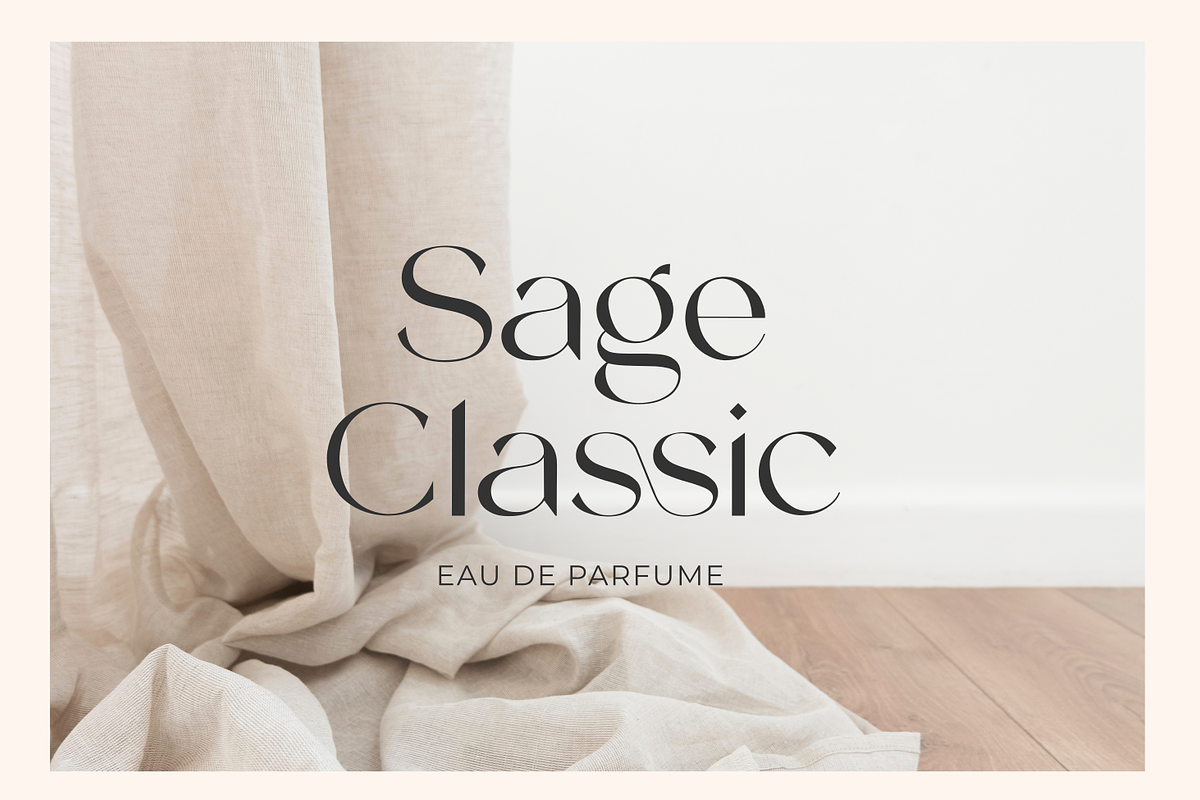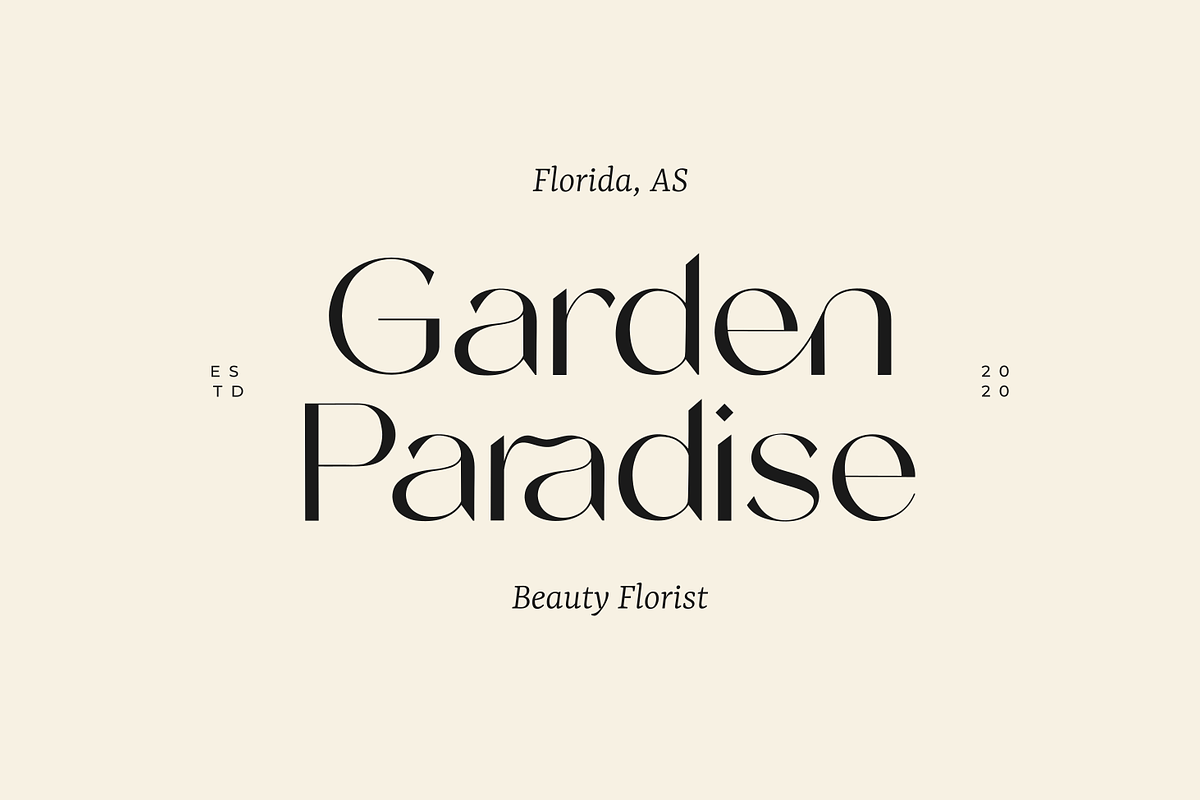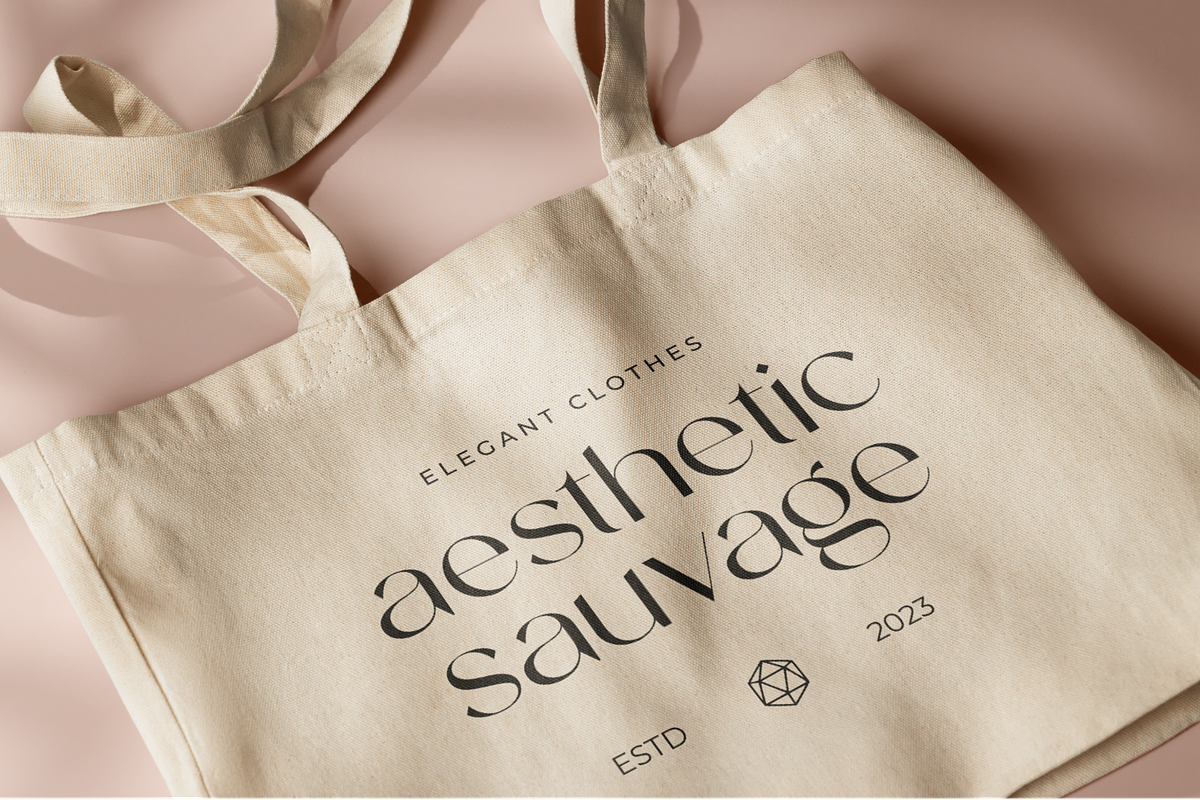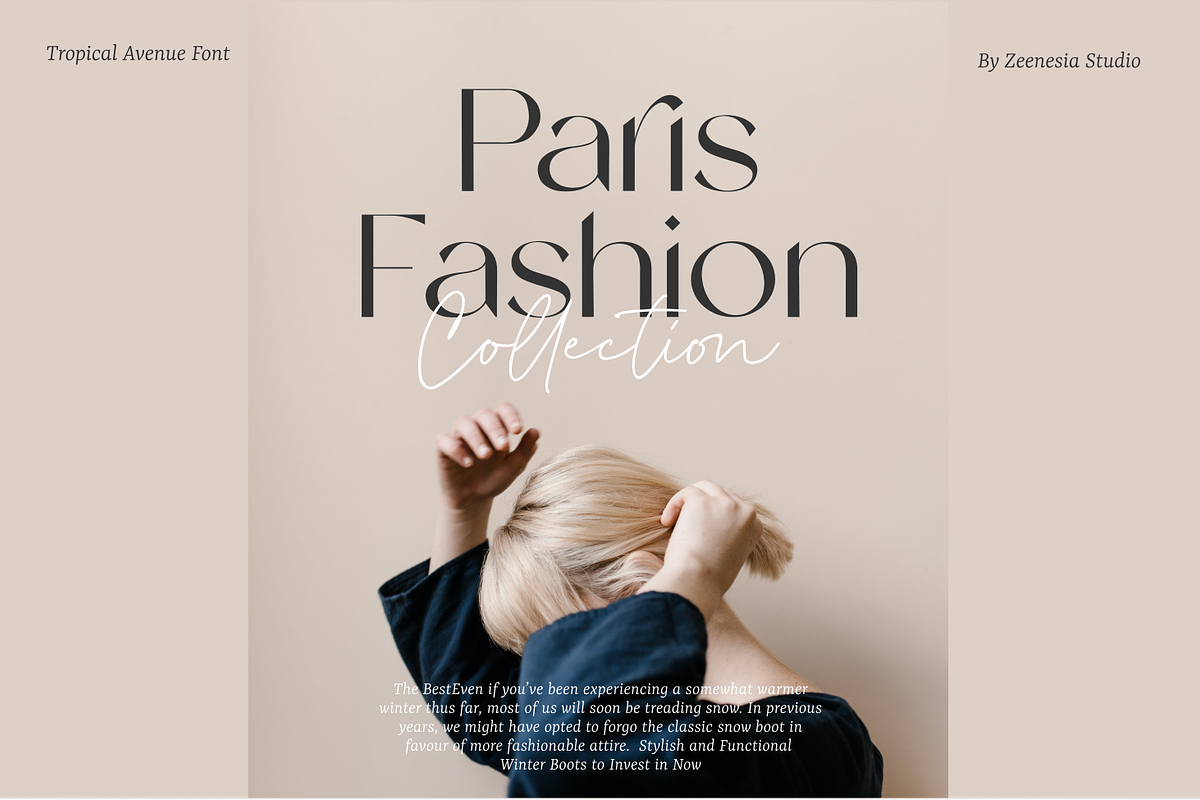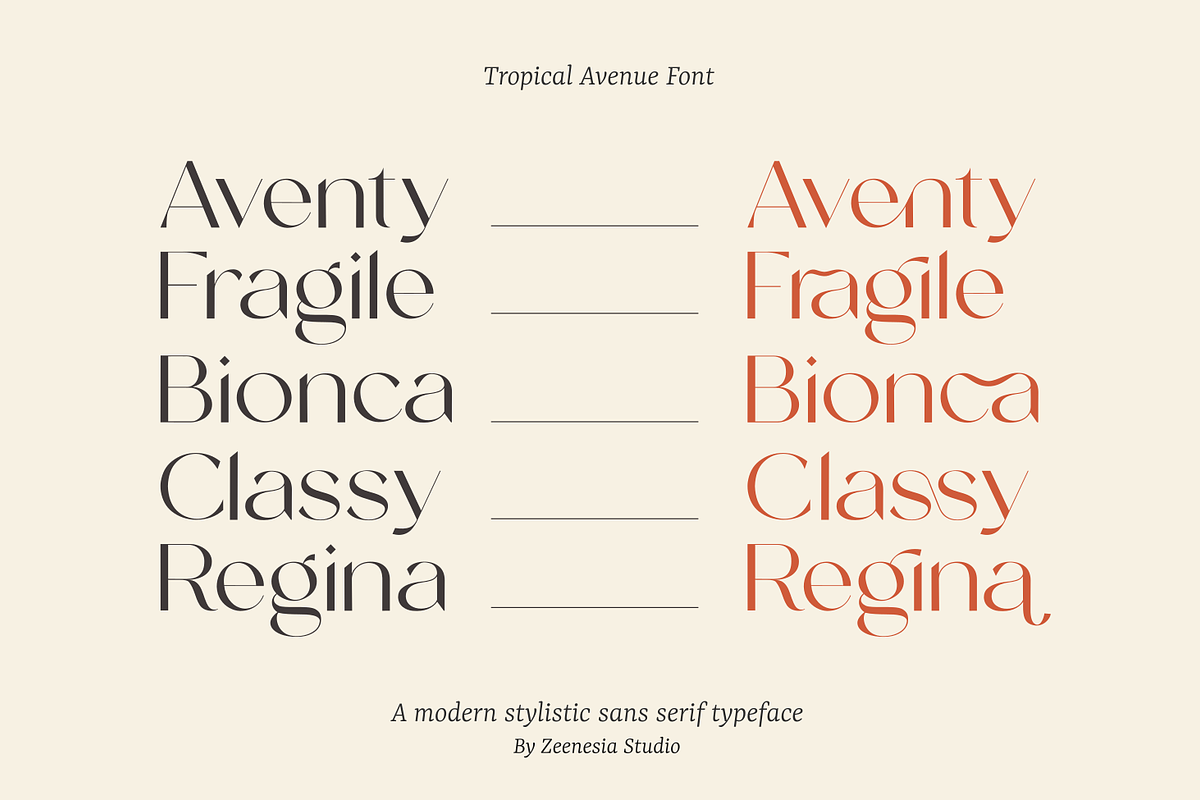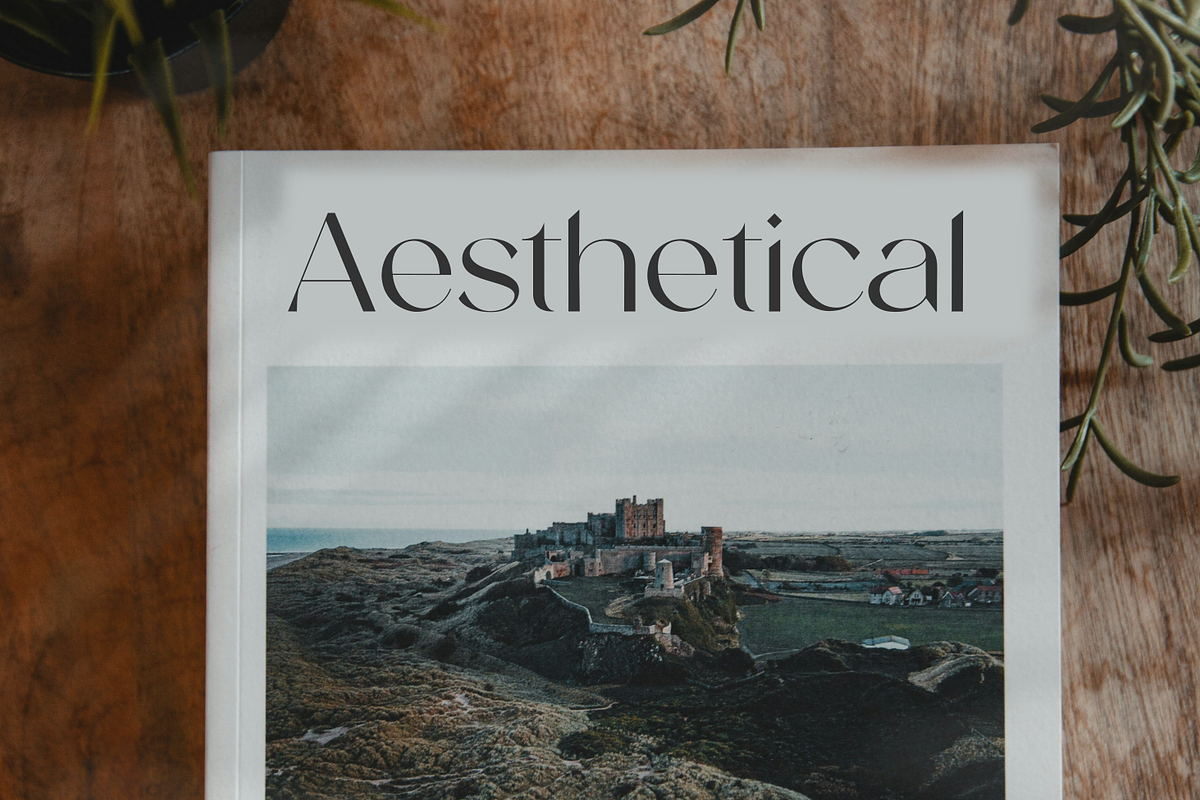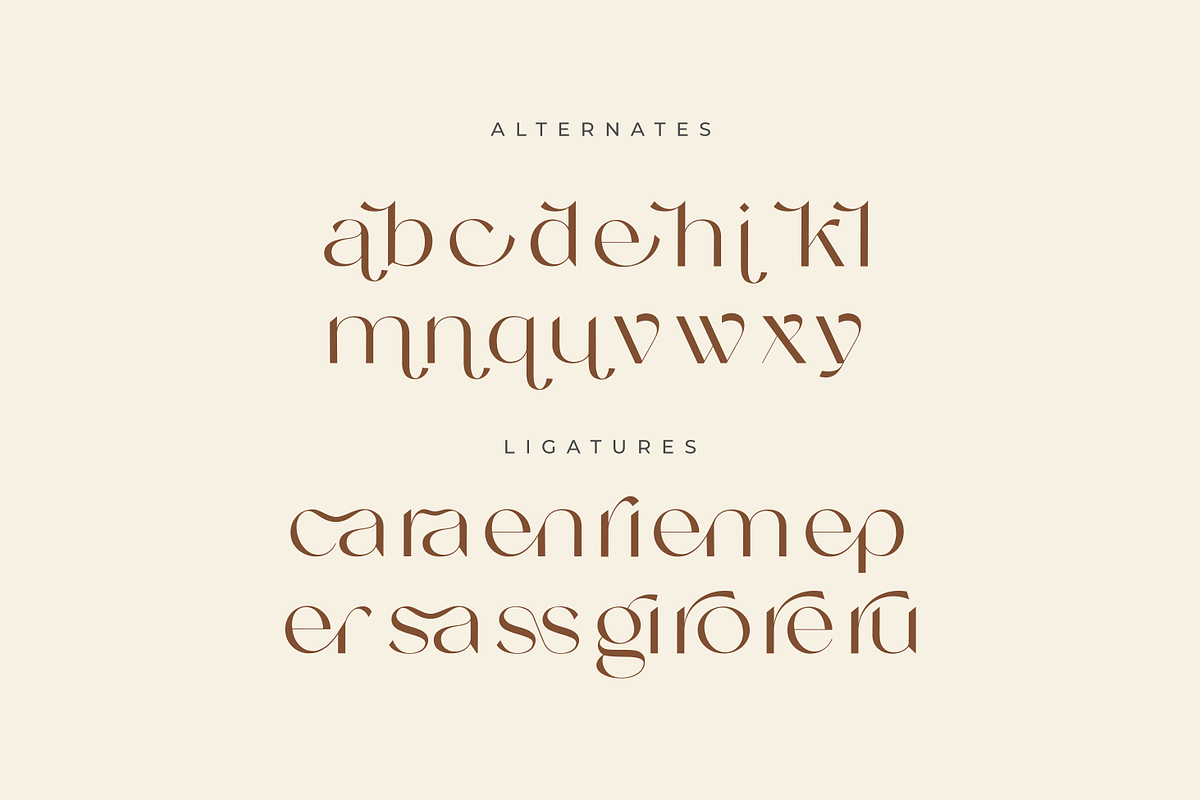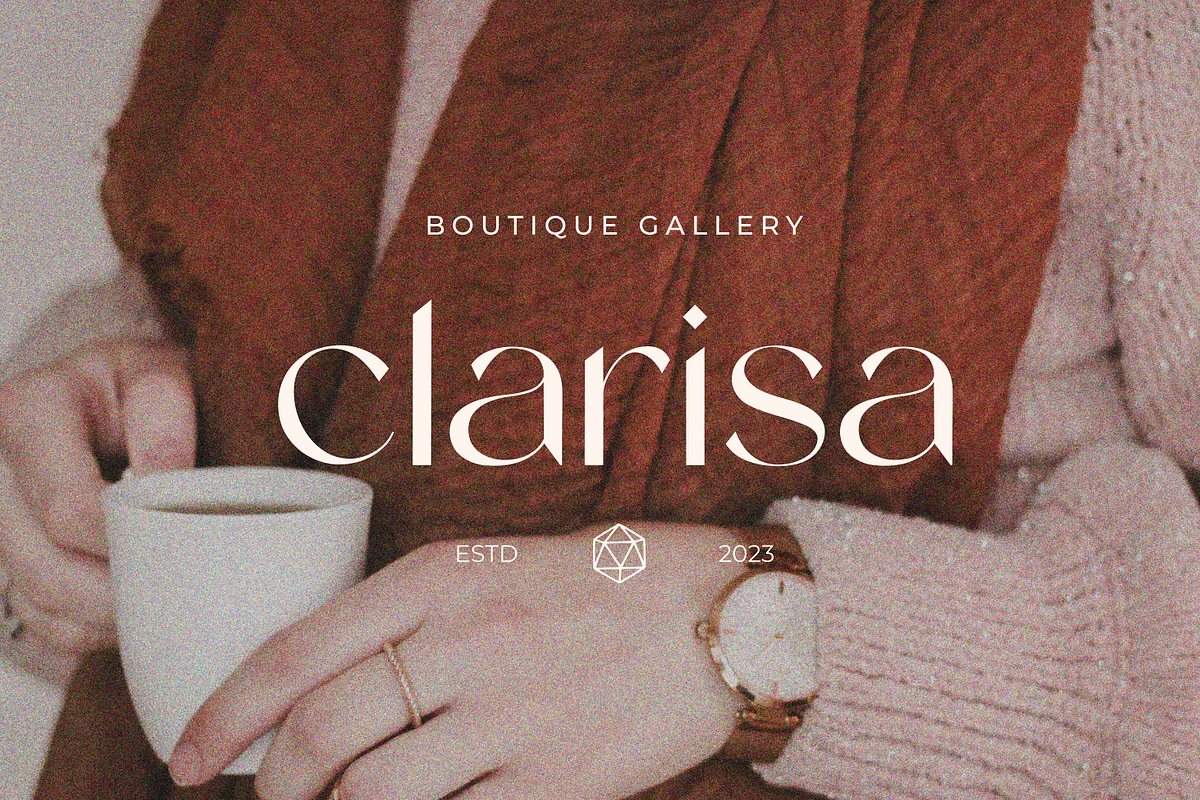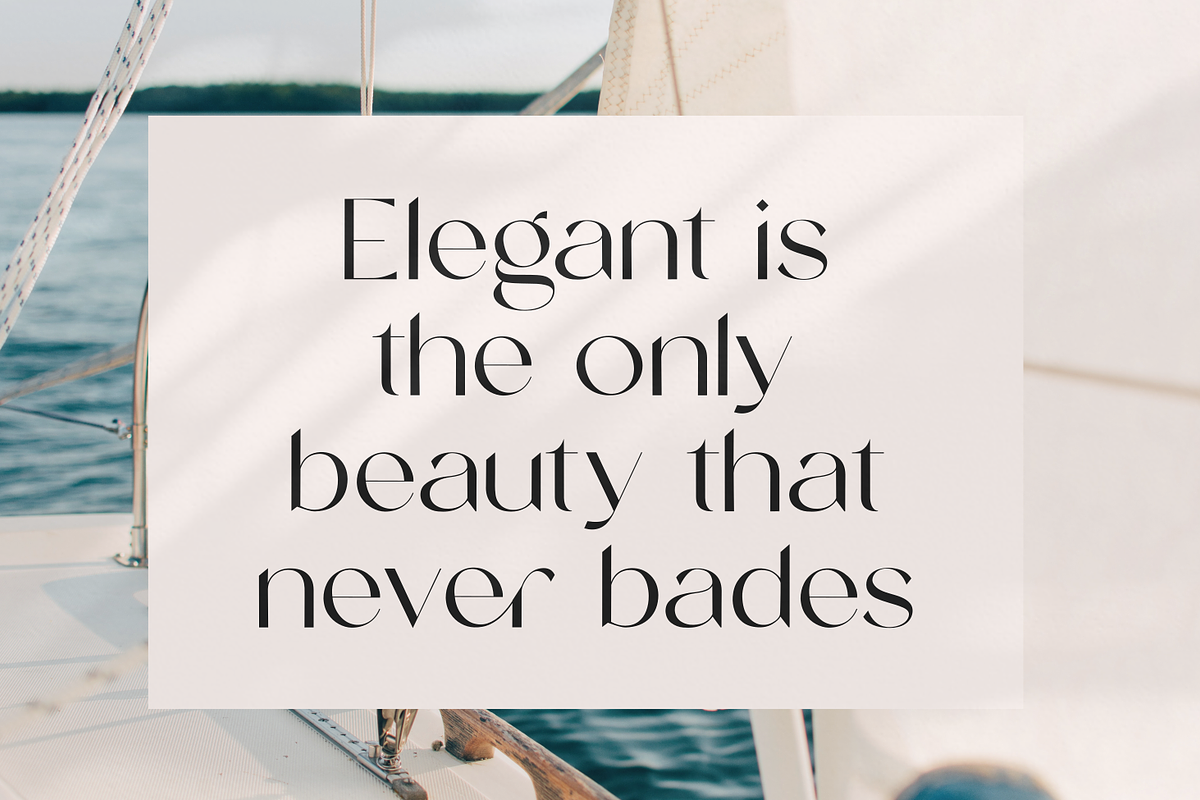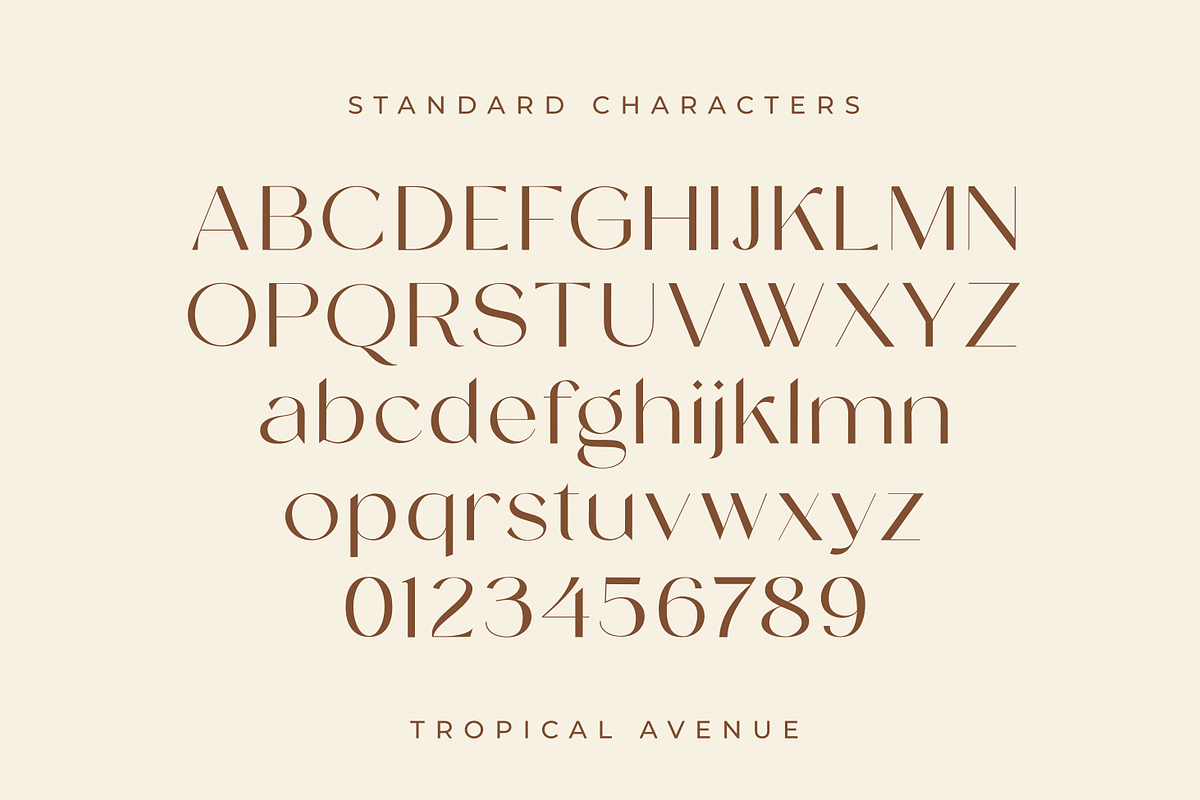
Tropical Avenue
Introducing Tropical Avenue. Tropical Avenue is a chique font with san serif style. It's modern and classic font with a unique and deference look , very versatile font that works great in large. Perfect if you need a dose of fun in your project. Perfect for editorial projects, Logo design, web font, clothing branding, product packaging, magazine headers, or simply as a stylish text overlay to any background image.